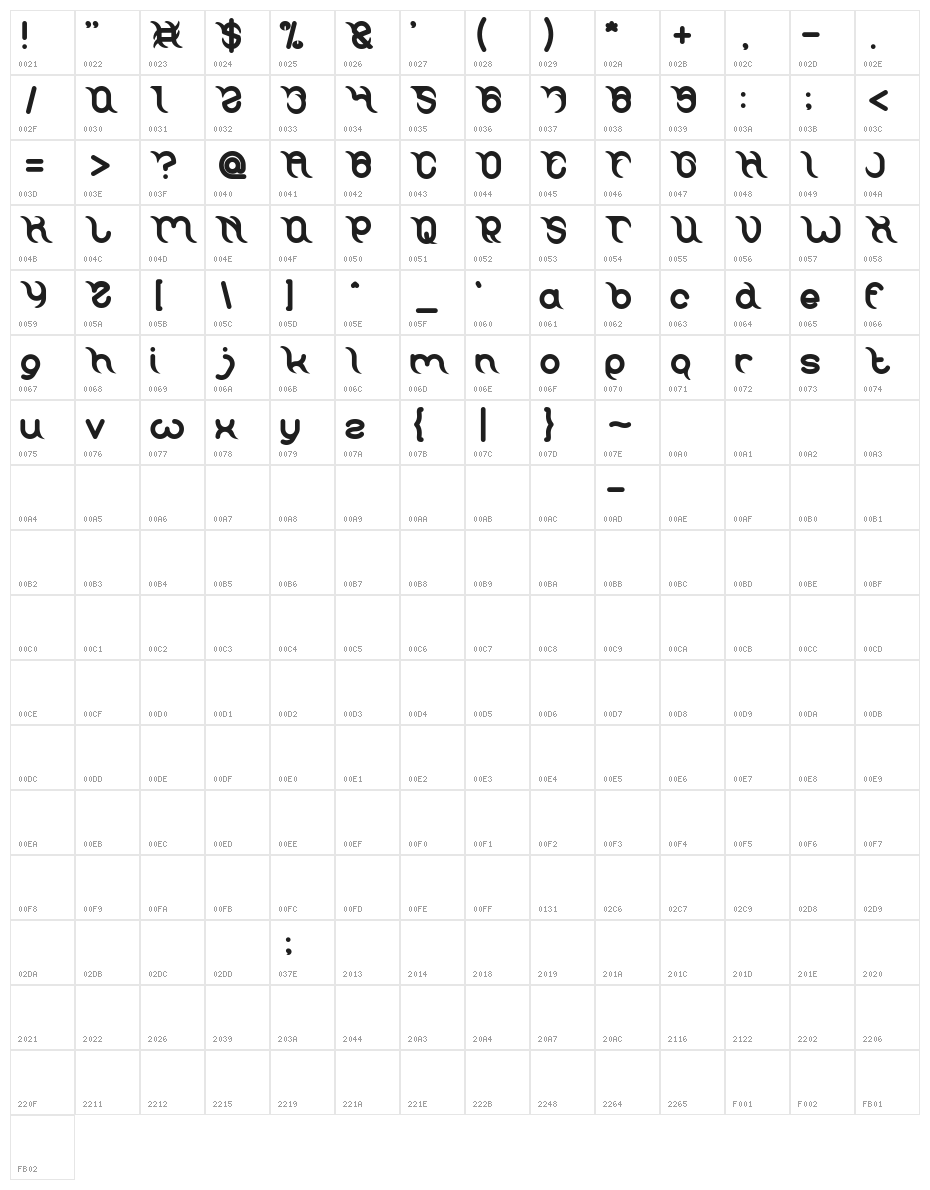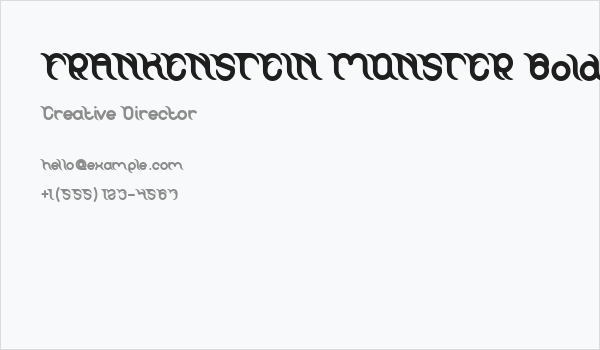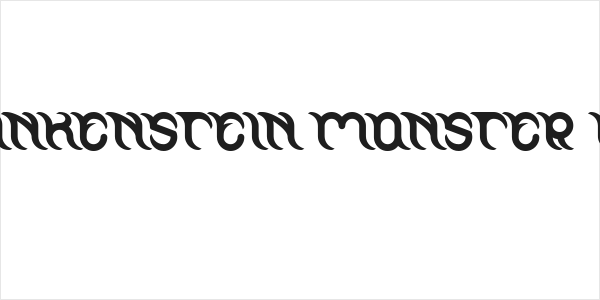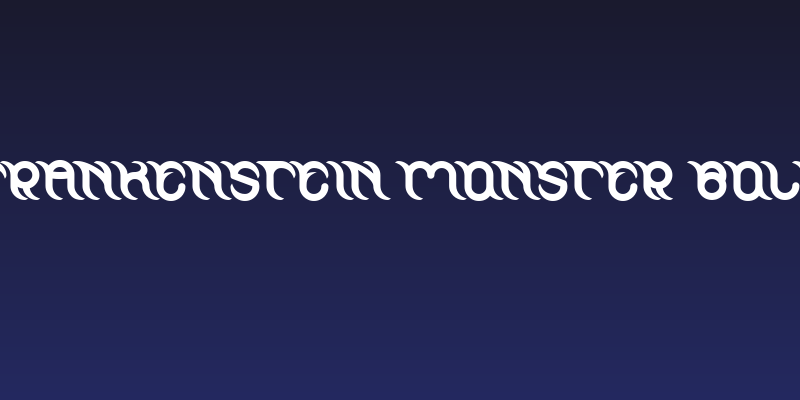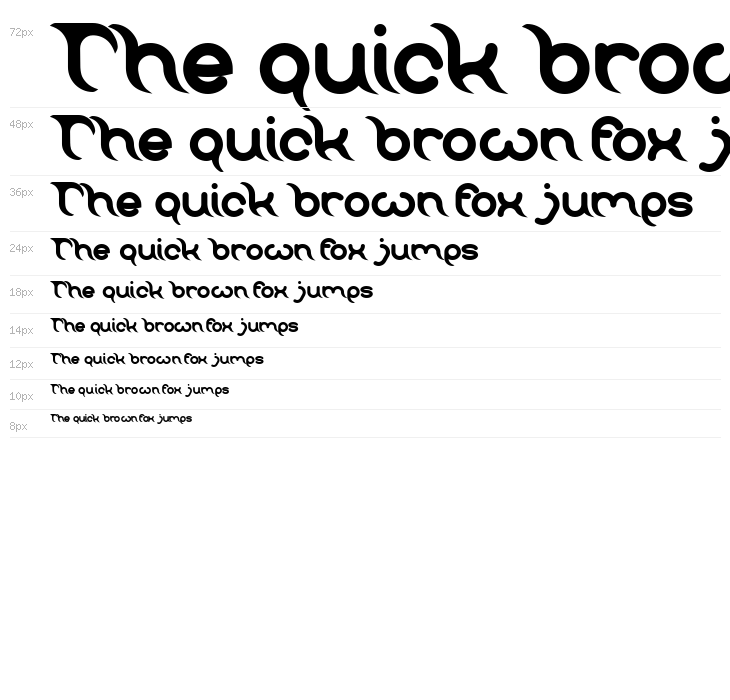
FRANKENSTEIN MONSTER Bold Font
FRANKENSTEIN MONSTER Bold Description
This font exhibits a bold and dramatic style, characterized by its unique, curvy, and somewhat gothic appearance. The letters have a distinct, organic flow with sharp, pointed ends that evoke a sense of mystery and intrigue. The uppercase and lowercase letters maintain a consistent style, with the uppercase being slightly more pronounced. The numbers and special characters are designed to match the overall aesthetic, making them suitable for thematic and decorative purposes. The font's boldness and unique character make it stand out, ideal for projects that require a strong visual impact.
| Proposed Projects | Ideal for horror-themed posters, Halloween invitations, book covers, and branding that requires a dramatic flair. |